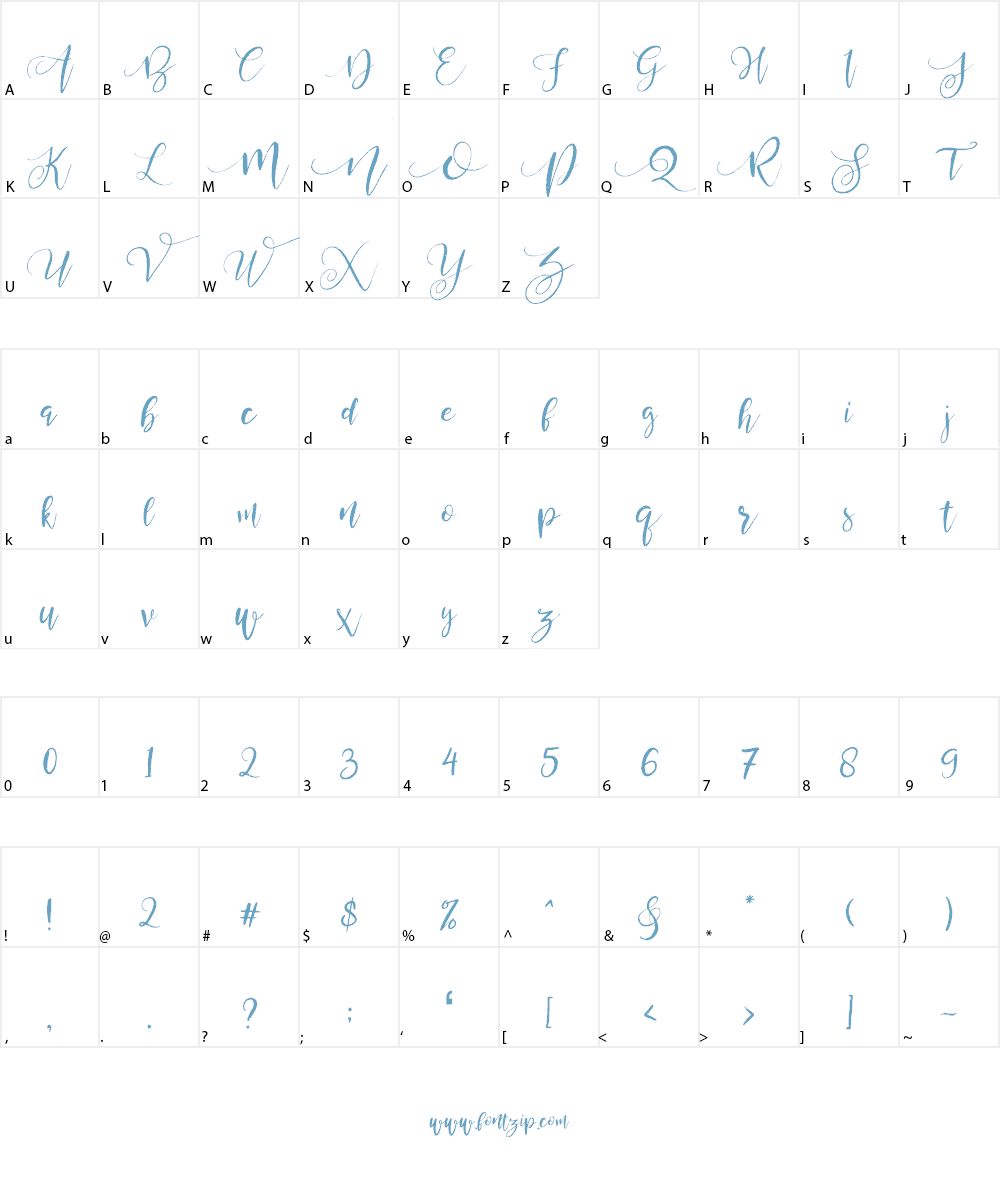
introducing Valledofas Typeface modern script typeface, using style hand made with brushing. Get a Valledofas Second Typeface ( bonus ) using handmade sans serif style. Valledofas Typeface a beautiful for wedding card design, logotype, website header, Valentines day design, fashion design and any more.
Features :
Character Set A-Z
Numerals &Punctuations (OpenType Standard)
Accents (Multilingual characters)
Contextual Alternates
Stylistic Alternates
SS01
SS02